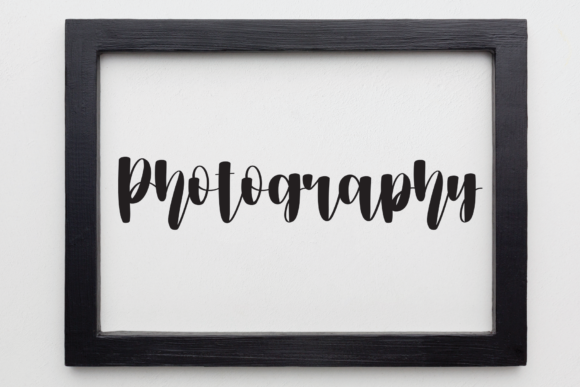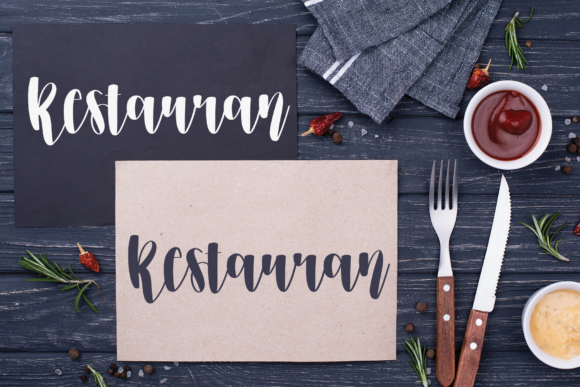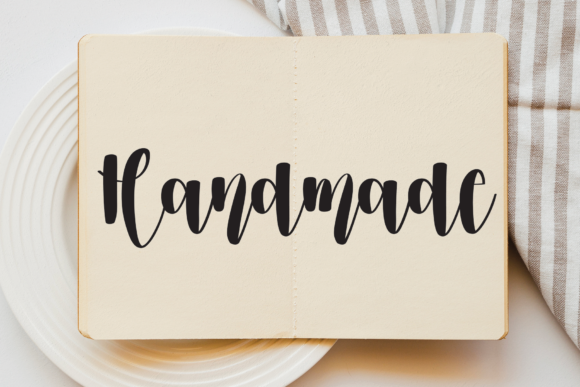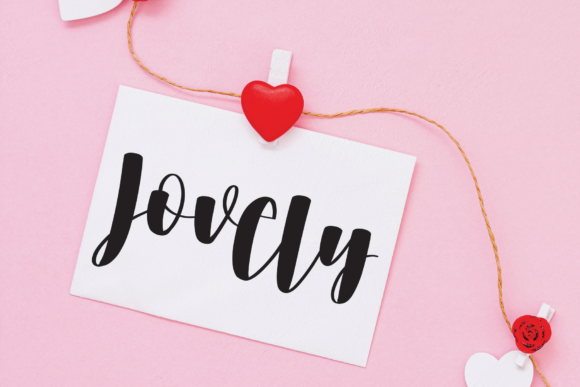
Joking Font
About Joking Font
Joking is a lovely script font featuring charming, playful characters that seem to dance along the baseline. Add this font to your most creative ideas, and notice how it makes them stand out!